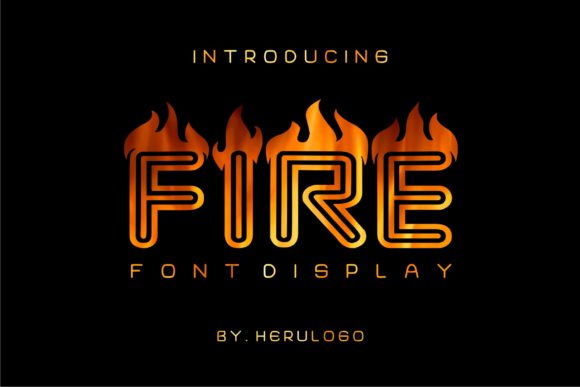
Introducing Fire Font, the absolute must-have font for all your LED display needs! Crafted with utmost precision by the talented Herulogo, this font is more than just a set of characters - it's an artistic masterpiece that will set your designs ablaze with creativity and style.
With its captivating flames and fiery motifs, Fire Font is the perfect choice for anyone looking to add a touch of sizzling hotness to their projects. Whether you're designing a BBQ restaurant menu, a grill-themed poster, or even a scorching logo, this font will bring your creations to life like never before.
Immerse yourself in the world of Fire Font and experience the power of its mesmerizing aesthetics. Each character is meticulously crafted to resemble flickering flames, ensuring that your text stands out and commands attention. Say goodbye to dull and unremarkable fonts - Fire Font is here to ignite your imagination!
But Fire Font isn't just about looks - it's also packed with functionality and versatility. With its extensive range of characters, including uppercase, lowercase, numbers, and symbols, you'll have all the tools you need to create stunning typographic compositions. Whether you're designing for print or web, Fire Font will adapt seamlessly to your needs, making it the go-to choice for designers and marketers alike.
But what truly sets Fire Font apart is its ability to evoke strong emotions and create a lasting impact. The mere sight of this font will evoke feelings of excitement, passion, and intensity, leaving a lasting impression on anyone who lays eyes on your designs. It's not just a font - it's an experience.
Don't settle for mediocrity when you can set your designs on fire with this exceptional font. Stand out from the crowd, captivate your audience, and make an unforgettable statement. Fire Font will be your secret weapon in the world of design, ensuring that your creations shine brighter than ever before.
So why wait? Fuel your creativity with Fire Font and let your imagination run wild. Whether you're a professional designer, an aspiring artist, or even a BBQ enthusiast, this font is the perfect addition to your toolkit. Get ready to unleash the flames of creativity and make your designs burn with brilliance!